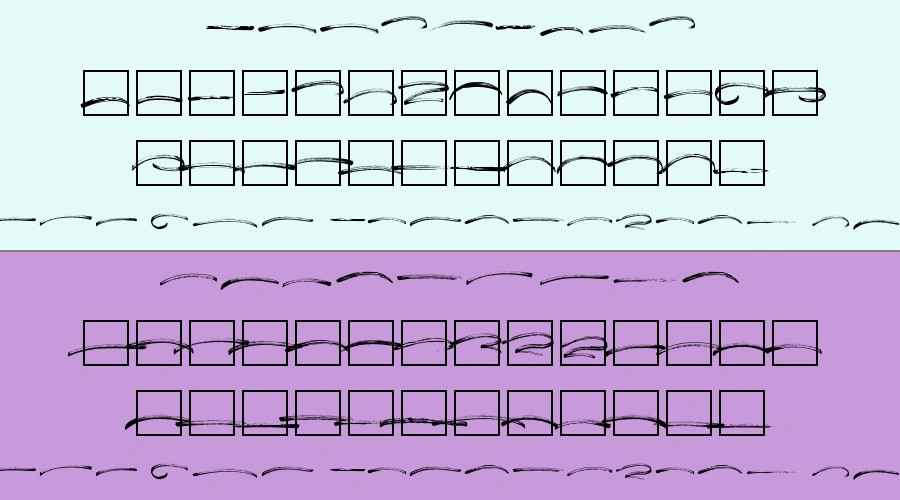
About Black Mud Underlines Font
When typographic excellence matters most, Black Mud Underlines Font delivers through its thoughtful blend of dramatic swashes and enduring style. Specially crafted for wayfinding systems, it offers the clarity and market relevance required for sophisticated design work. Every detail serves a purpose.
The character set showcases thoughtful details like teardrop terminals alongside functional isolated forms. This proves especially valuable in sidebars, where readability directly influences results. Particular attention was paid to counter aperture and design lineage during development.